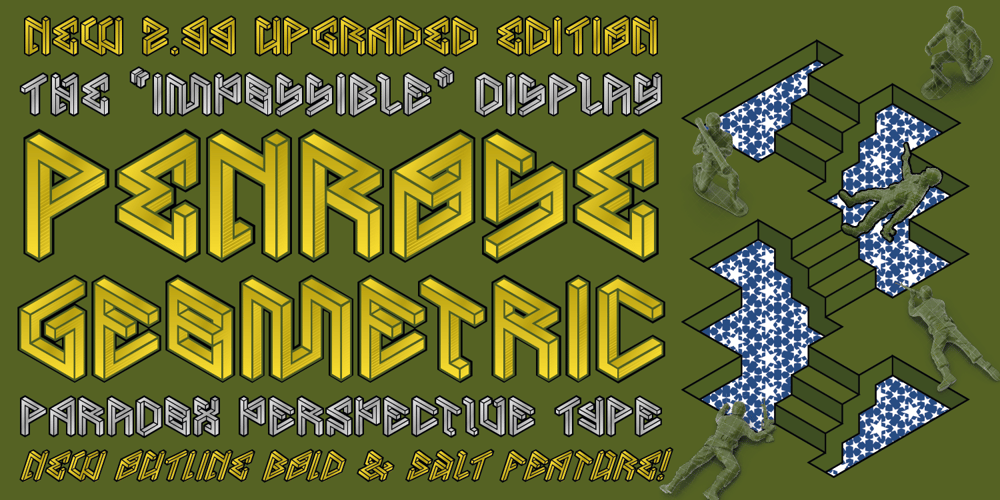
PENROSE Geometric
PENROSE Geometric font
PENROSE Geometric Font Family was designed by Dr. Andréground and published by MMC-TypEngine. PENROSE Geometric contains 28 styles and family package options. The 3D/4D Paradox Impossible Perspective Display Typeface! Created for defying the Impossible!Penrose Geometric™ was inspired by the ‘Penrose Triangle’ or “Impossible Tribar” invented in 1934 by Swedish artist Oscar Reutersvärd, the father of “Impossible Figures” and a few others of his iconic and instigating impossible sculptures designs, denominated as “Japanese Perspective” as its related to traditional Japanese “isometric-like” drawings. It was profitable to explore this Type field as a revival of his work, while this genre was kind of rare in 2013 when it was first released…Plus of course, an homage to the Dutch Master MC Escher, which deep labored this and other Impossible Perspective Paradoxes in a higher level, incorporated to unique architectonic designs, in addition to the brilliant mathematician Sir Roger Penrose and his father Lionel, who popularized this kind of Optical Illusions in 1950 and described it as “The impossibility in its purest form” in the famous British Psychology Journal article. Also, thanks to them, this typeface has earned its name!The first version of this font was an Academic Work to present a Display Alphabet in Typography class in 2012, during studying Graphic Design in college, it was kind well appreciated and received an A+ Grade, then I was encouraged to make a Real Typeface, that came a bit ingenuously in 3 styles. It was my first font, published by the extinct MMC foundry registry which had a bad naming appropriation from Typodrome, previously the academic type-project from the institution mag.*The Original or Pre-Version font-family that was first released 2013 is also still to be separately relaunched and be available again with a few fixes as soon as possible, titled as Beta Font… As only for public library storage and a more democratic licensing purpose.While comparing first family had only the uppercase set of characters repeated twice and far away inferior in overall properties, against 2 sets of both cases with alternates and much more glyph ranges and accuracy way beyond… Plus, plenty of font styles for layer typesetting. It also included card-suites.The 2nd edition upgrade took place in 2018 and relaunched by MMC-TypEngine in 2021 at 2.99 improved edition with optical rescaled Size, in addition to new inedited ‘outline Bold’ styles to the font-family! Along with other fixes, as simplified contours which made a better Rendering quality.Tip: This current font-family version is a Mix-Case type. As so, typing as a normal text with lowercases along the sentences can look kind of “Funny”, for Titling design you may set all text to uppercase, or better Capitalize, then mix cases for instance, try further also to use the stylistic alternates feature same as the B styles to get a different look, and make greater impact!— Notice that all the standard or default styles (meaning pro features) have 629 glyphs and the B styles has 364 glyphs or the main half portion.Usage-Suggestions: Penrose Geometric™ is quite appropriated for Logos and Titling Displays, Branding Projects, Posters, Web Page Headings, Publishing’s, Clothing and Printing design… Plus, of course Motion Graphics, Cartoons & Comics, Cards & Games… Everywhere surfaces that you can flat this Type of Illusion through exploring Geometric engaging with this “tricky” perspective Paradoxes that unanimously seems impossible to realize or to build even to the less skeptic…Enjoy the Impossible Possibilities with Penrose Geometric! & Go beyond!Greetings!André, MMC-TypEngine.